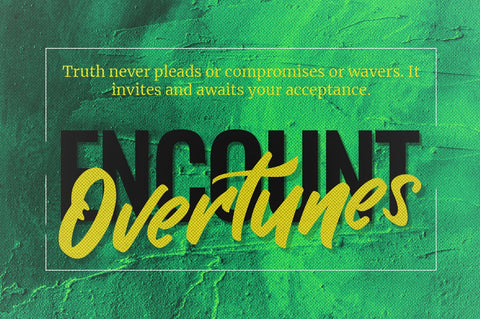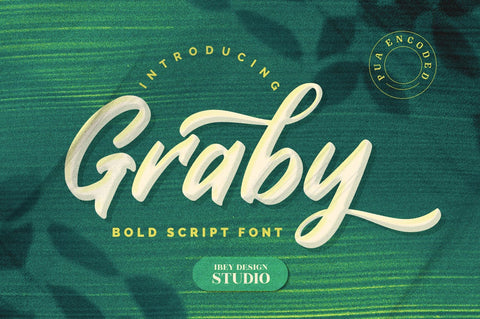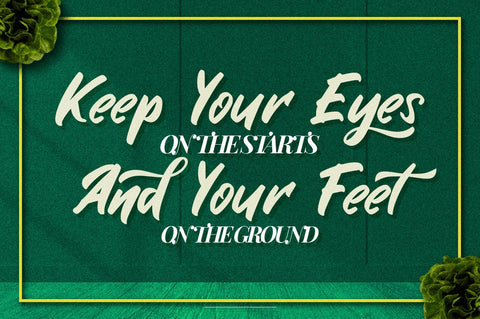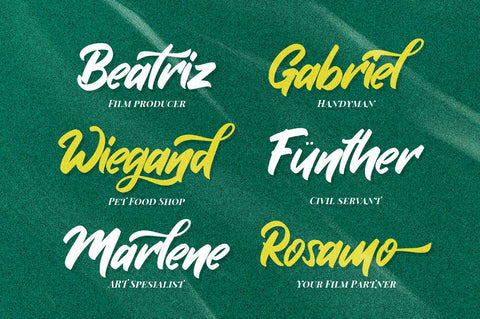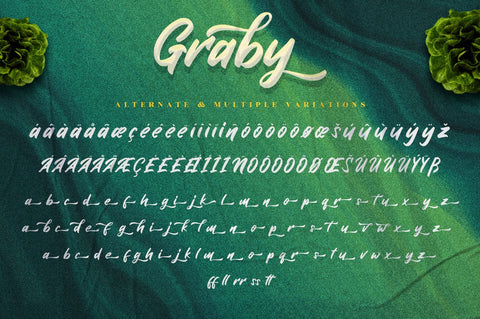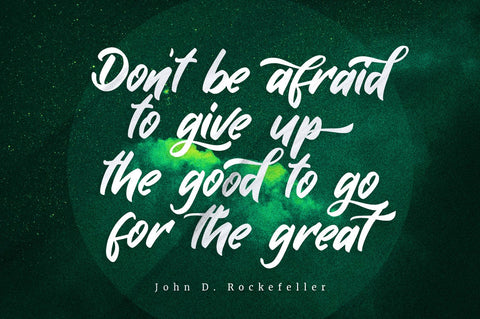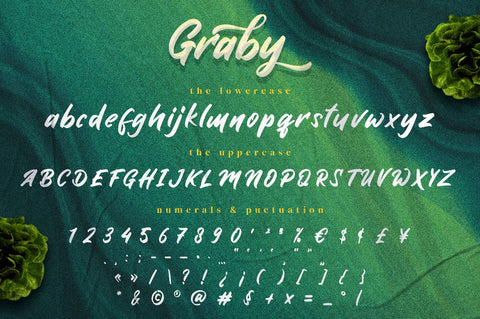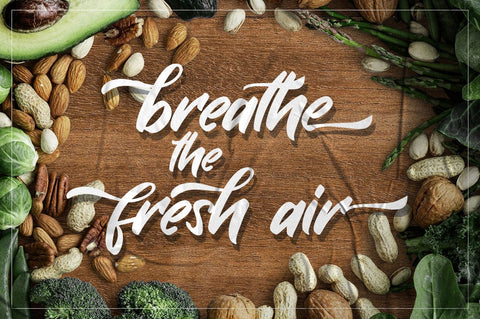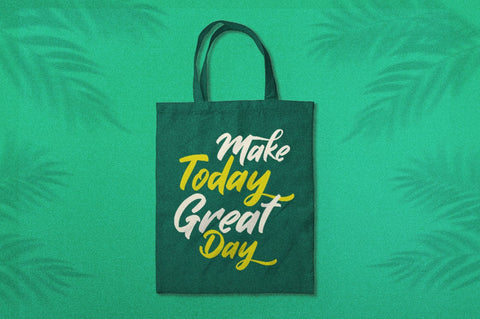
Graby - Bold Script Font
Graby Bold Script Font feels equally charming and elegant. It looks stunning on wedding invitations, thank you cards, quotes, greeting cards, logos, business cards, and every other design which needs a handwritten touch.
Graby Bold Script Font is PUA encoded which means you can access all of the glyphs and swashes with ease!